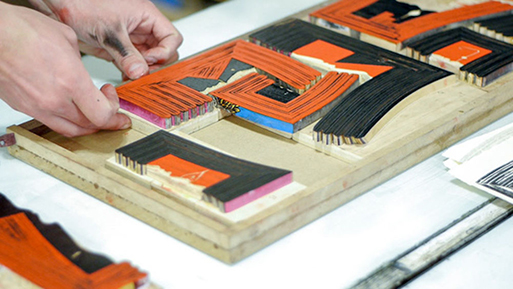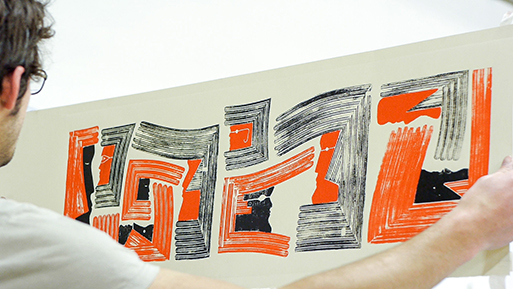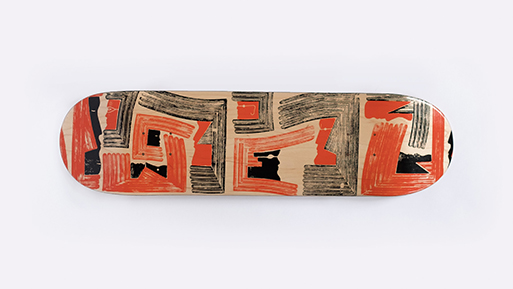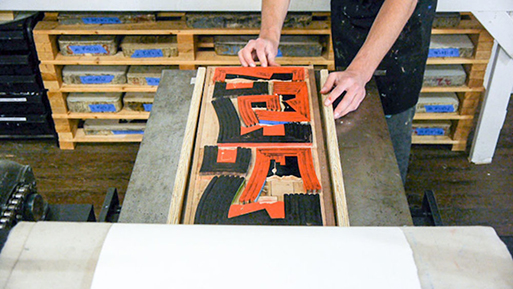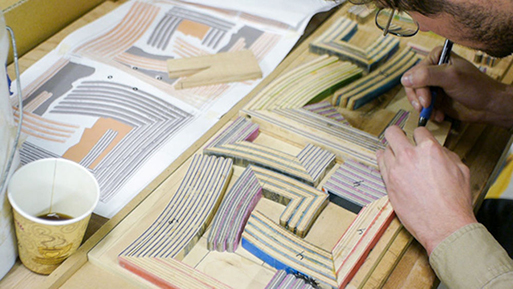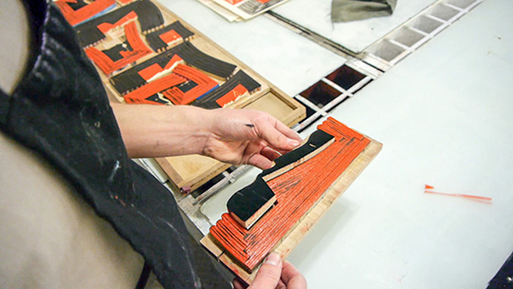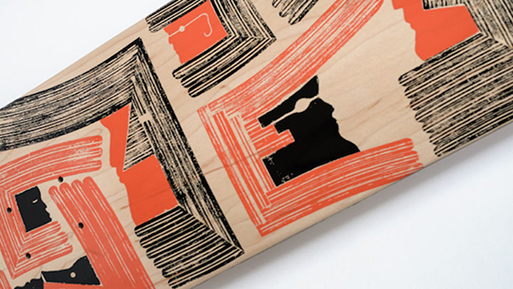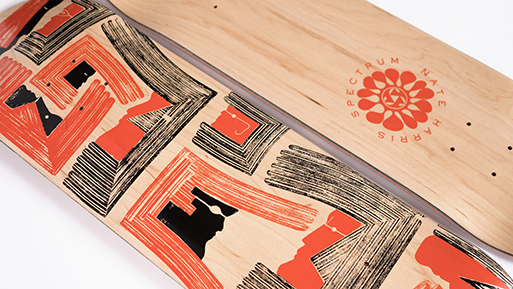
Nate Harris’s graphic Spectrum skateboards are nostalgic and brilliant
While others are investing in the digial technologyNate Harris brings his talent in full bloom with nostalgia and old-school inspiration. The Philadelphia based visual artist who has previously worked with Target, Saxbys, and Lotus incorporates, used skateboards into the printing technique for Spectrum.
"There wasn't one specific influence for this graphic," he explains to the Creators. "It was more about the actual process. It's conceptual and ties back to skateboarding. I hope to have struck a good balance between having it be conceptual but not overly so."
Inspired by “the type-heavy, iconic graphics of Zero Skateboards, who often opted for simple black-and-red colorways, as well as the design-heavy boards from Habitat, which often employed repeating patterns and iconography, rather than logo or character-based themes” Harris’s designs are a skateboarder’s object of desire.